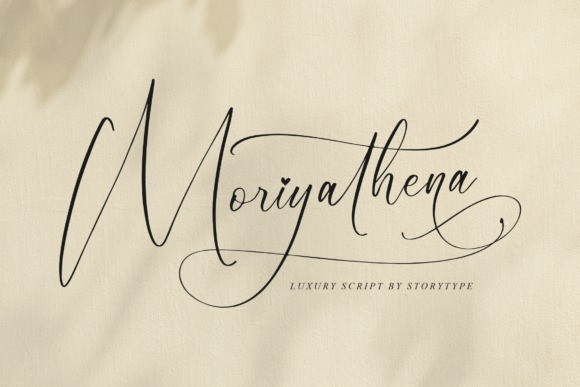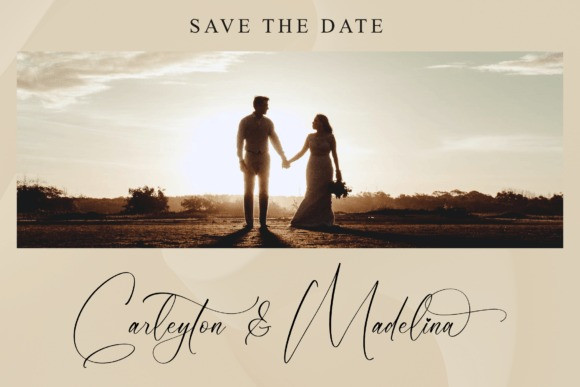
Moriyathena Font
Moriyathena is a luxurious script font with a modern style and unique look.
This typeface is perfect for an elegant & luxury logo, book or movie title design, fashion brand, magazine, clothes, lettering, quotes, and so much more. This font is PUA encoded, which means you can access all of the glyphs and swashes with ease!